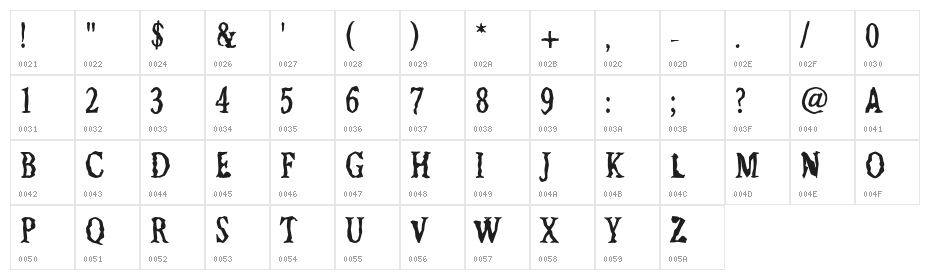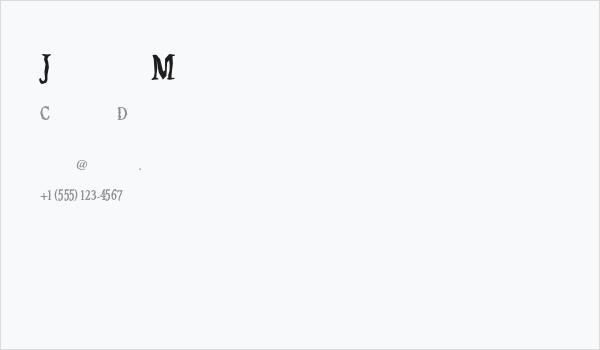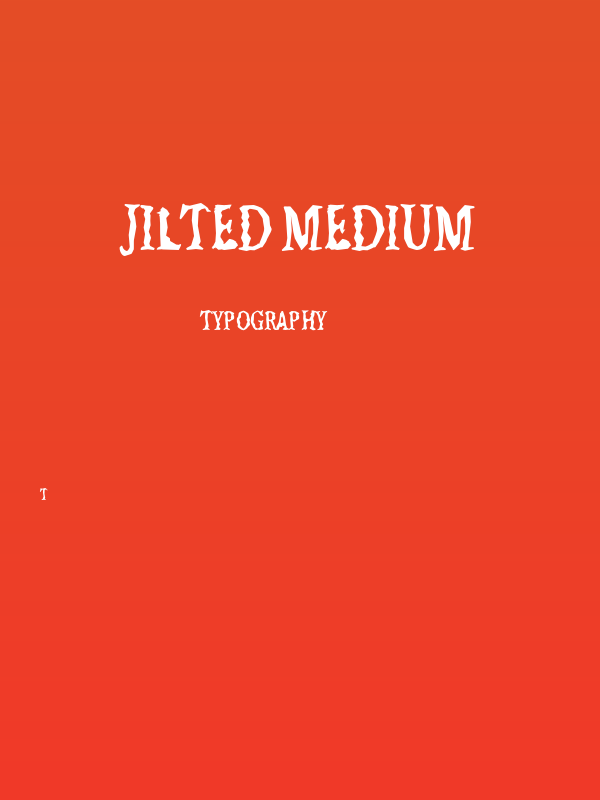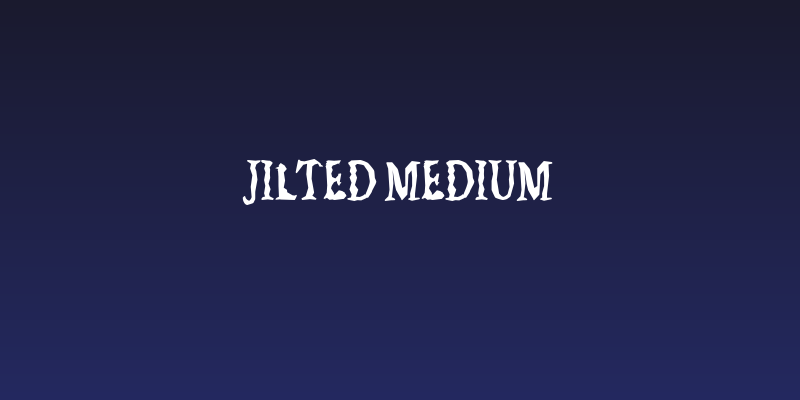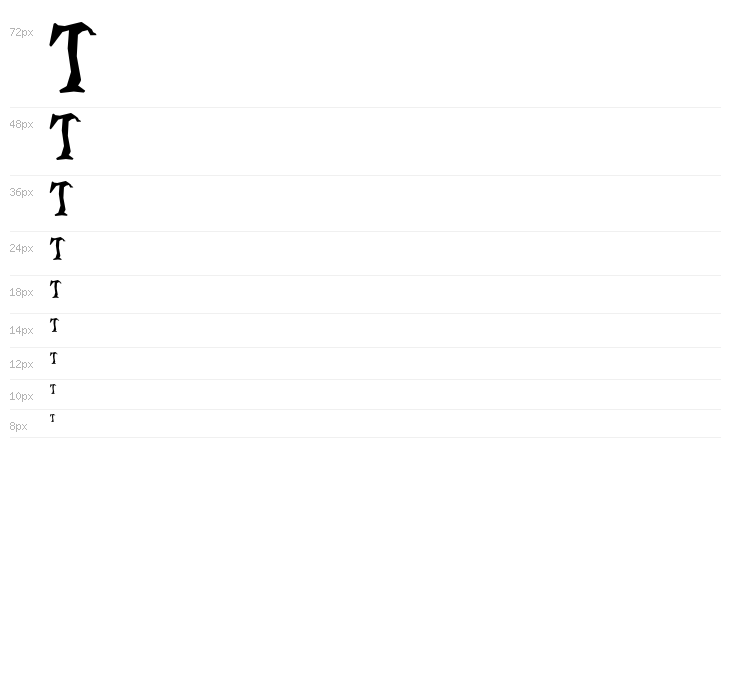
Jilted Medium Font
Jilted Medium Description
This font features a bold and dramatic style with a distinctly jagged and irregular appearance. The characters have an uneven, hand-drawn quality that gives them a unique and edgy look. The strokes are thick and varied, creating a high contrast between the thick and thin parts of each letter. This font is highly decorative, with an almost gothic or horror-inspired aesthetic. The uppercase and lowercase letters maintain a consistent style, and the numbers and special characters follow suit, adding to the overall cohesive design. The font's distinctive appearance makes it stand out, making it suitable for attention-grabbing headlines or thematic designs.
Overall StyleGothic, Decorative
Proposed ProjectsIdeal for horror-themed posters, Halloween invitations, edgy branding, and album covers.